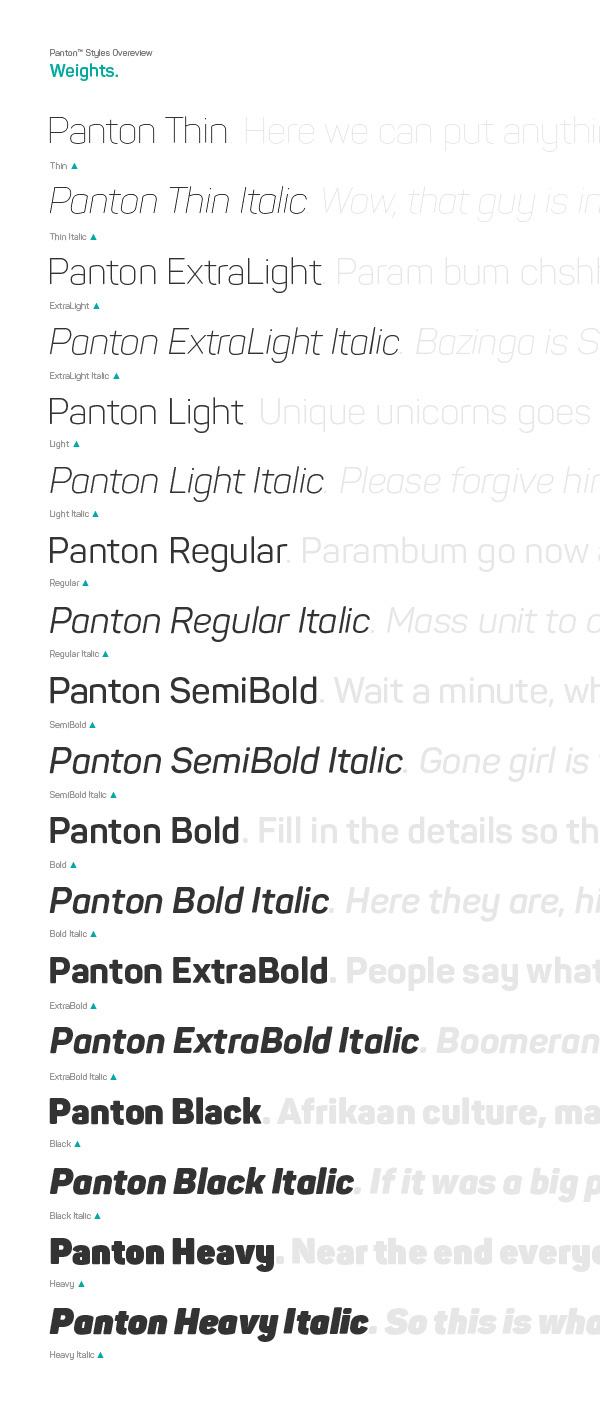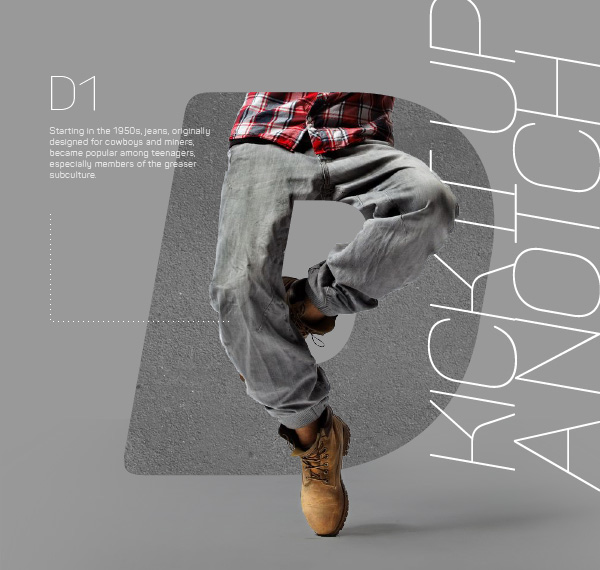
Panton Typeface
The Panton font family includes 34 weights – 9 uprights with 9 italics and 16 icon sets as a bonus. It is characterized by excellent legibility in both – web & print design areas, well-finished geometric designs, optimized kerning, excellent web-font performance and legibility etc.